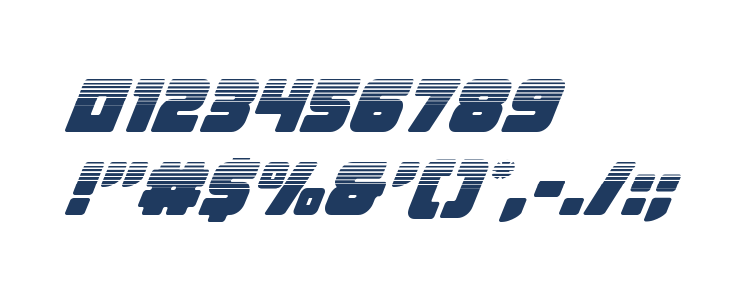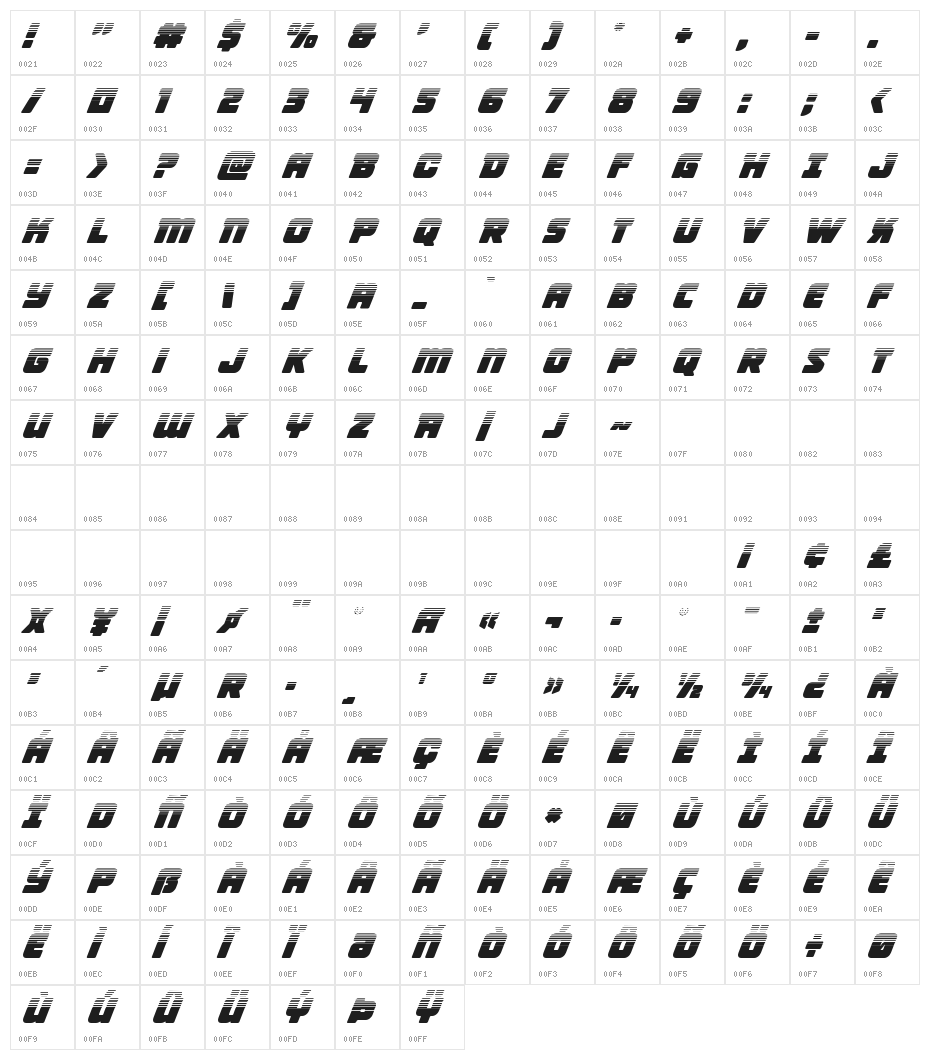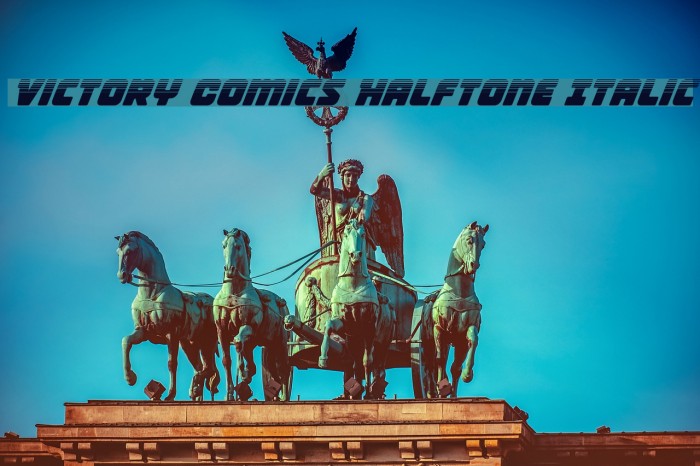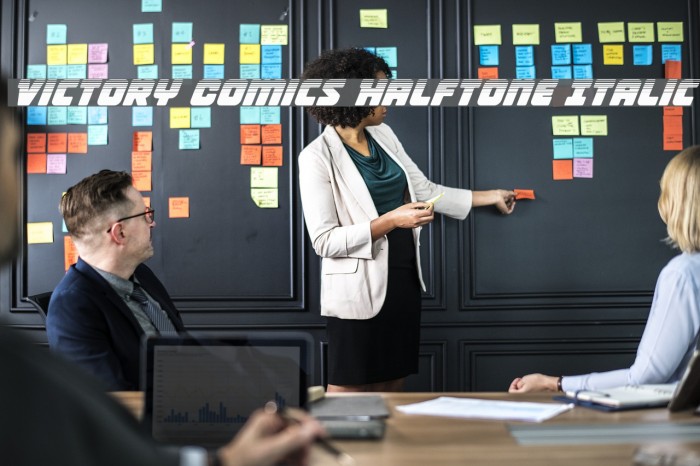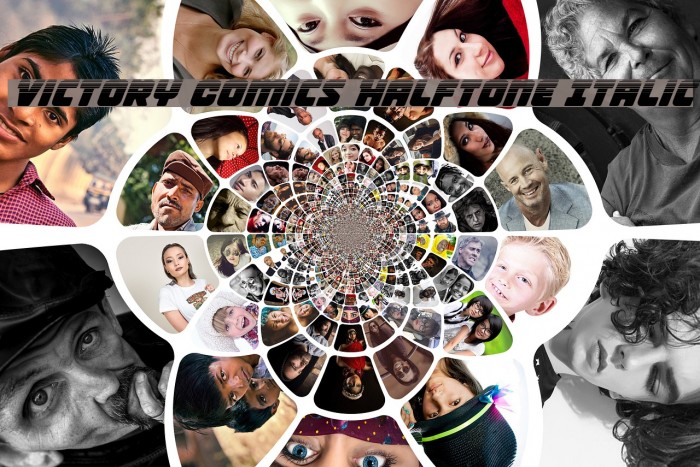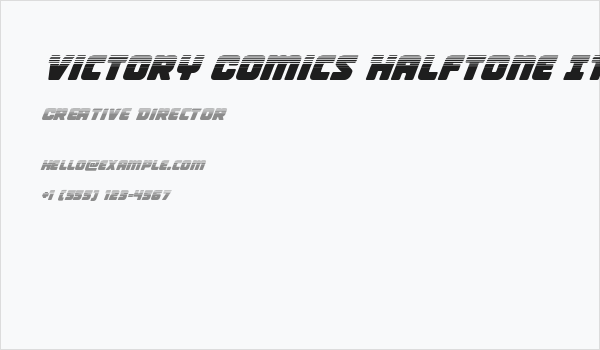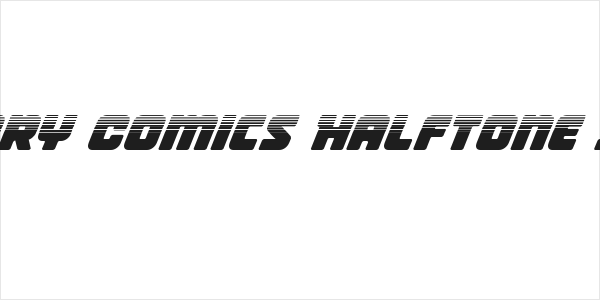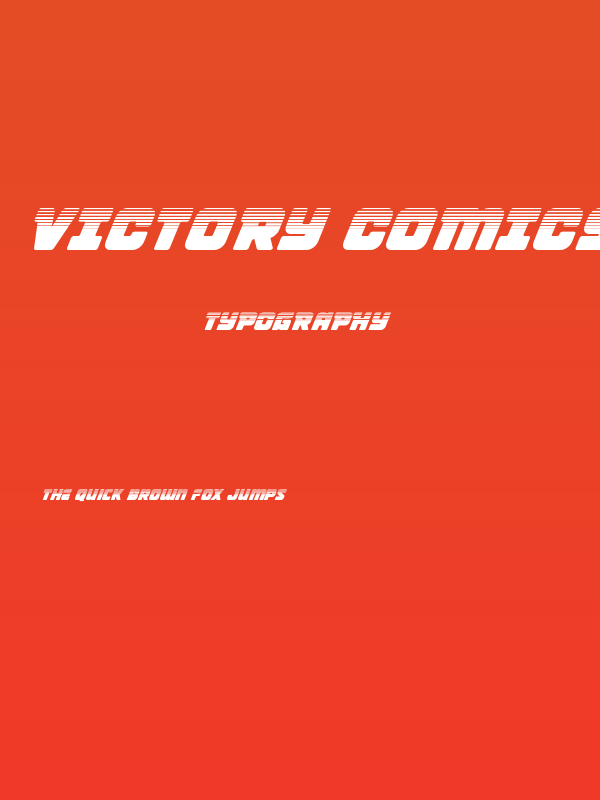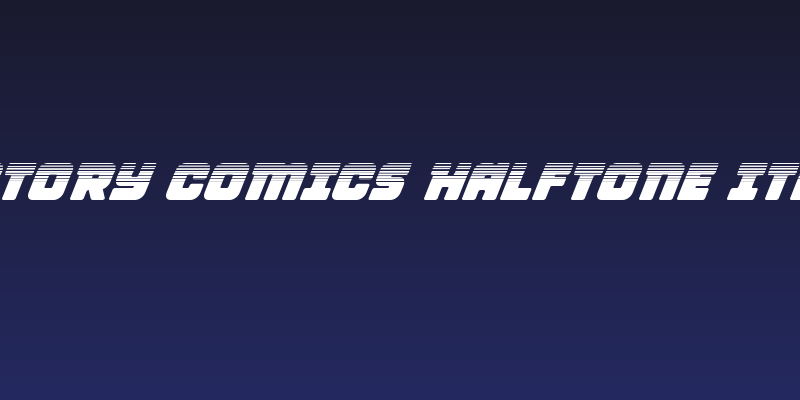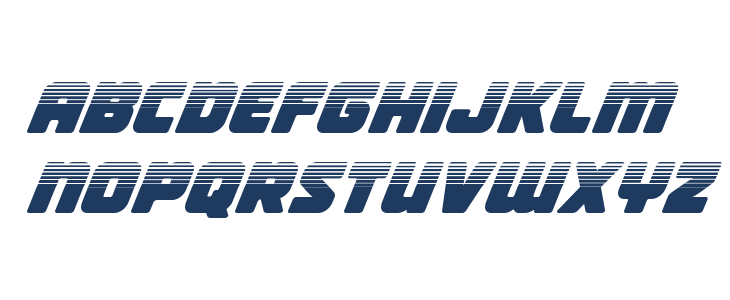
Victory Comics Halftone Italic Font
Victory Comics Halftone Italic Description
This font features a bold, dynamic style with a halftone effect that gives it a retro, comic book feel. The characters are italicized, adding a sense of motion and energy. The uppercase and lowercase letters maintain a consistent width, creating a uniform appearance. The numbers and special characters follow the same design principles, ensuring cohesion across all elements. The halftone lines add texture and depth, making it ideal for eye-catching designs.
| Overall Style | Retro, Comic |
| Proposed Projects | Perfect for comic book covers, retro-themed posters, video game graphics, and dynamic logo designs. |